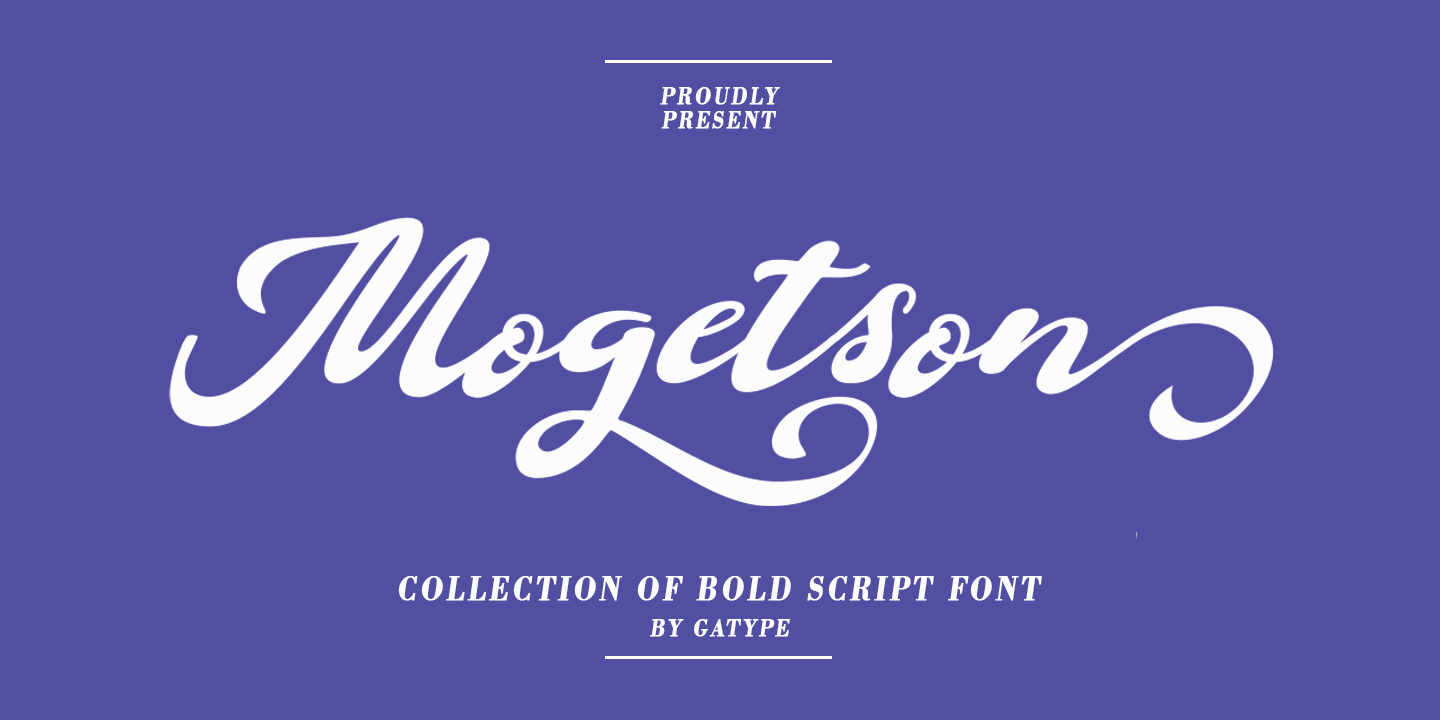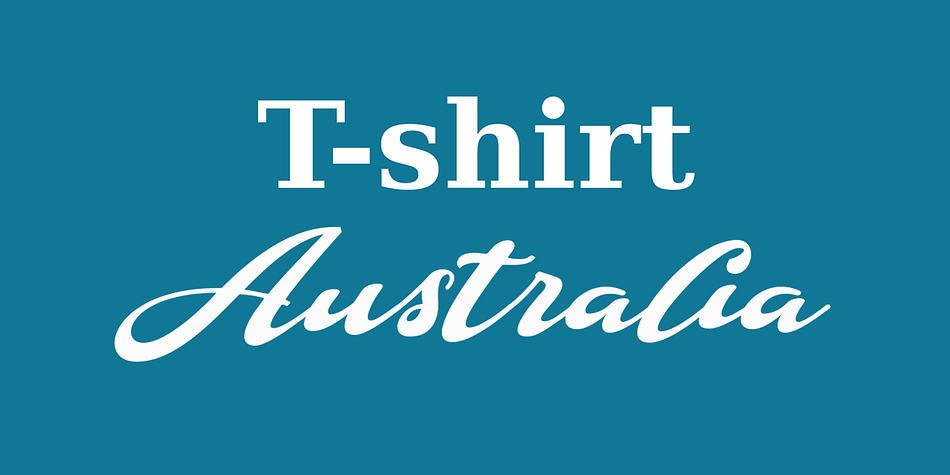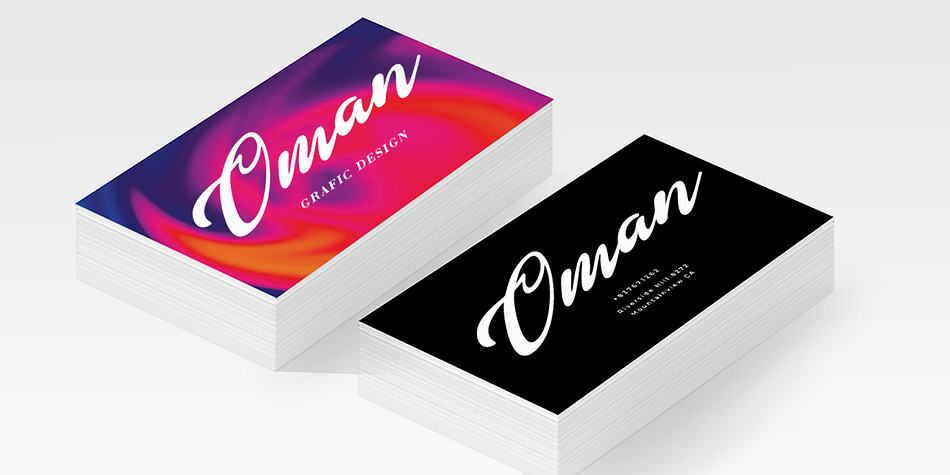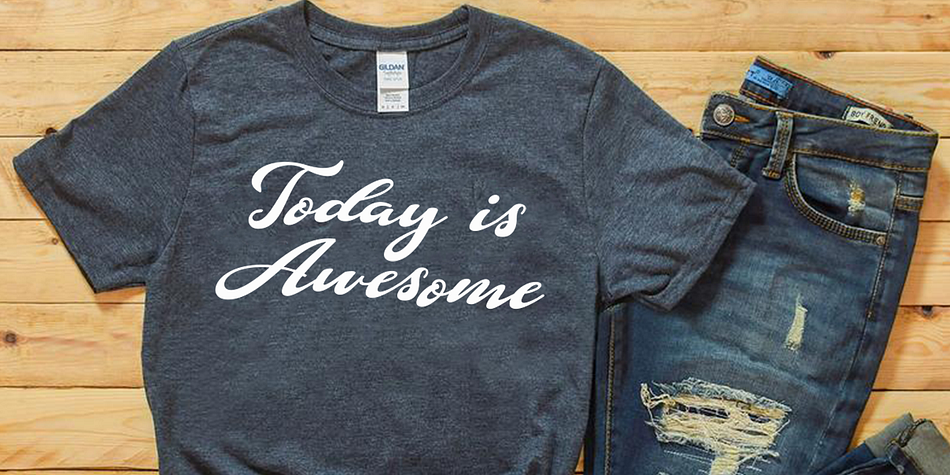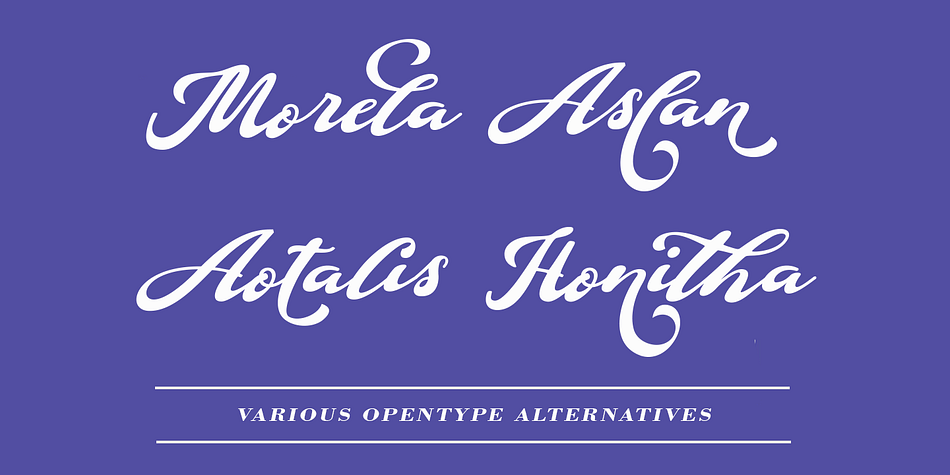
Mogetson
Mogetson is a brush script font family published by Gatype.
Mogetson is a cursive script font. With bold contrasting strokes, a playful character with a bit of binder and alternatives. To give you some extra creative work.. This font is great for logo designs, Social Media, Movie Titles, Book Titles, short text even long text fonts and is great for your secondary text fonts with sans or serif. Create stunning masterpieces. mogetson fonts contains a full set of lowercase and uppercase letters, a wide variety of punctuation marks, numbers, and multilingual support. Alternative characters are divided into several Open Type features such as ,Alternative Style. The Open Type feature can be accessed using intelligent Open Type programs such as Adobe Illustrator, Adobe InDesign, Adobe Photoshop version of Corel Draw X, and Microsoft Word. And this Font has provided PUA unicode (custom coded font). so that all alternative characters can be easily accessed in full by a craftsman or designer.